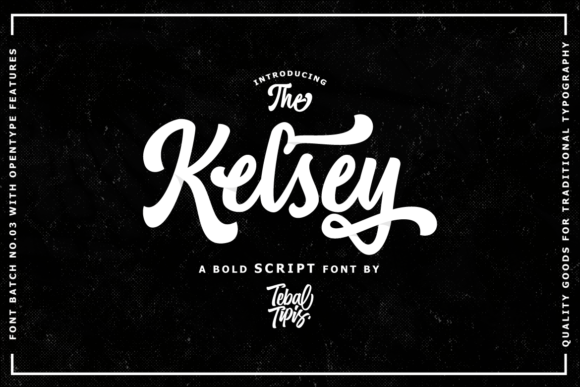
Kelsey Font - The Quintessential Handwritten Font for a Merry Christmas
Unleash the enchanting beauty of handwritten letters with Kelsey Font, a flowing and beautiful script font that will transport you to a world of elegance and charm. Crafted with meticulous attention to detail by Tebaltipis.std, Kelsey Font is a visual masterpiece that captures the essence of the holiday season.
Immerse yourself in the magic of Christmas with Kelsey Font, a font that evokes the warmth of a crackling fire, the scent of gingerbread, and the joy of spending time with loved ones. Its varying baseline, smooth lines, gorgeous glyphs, and stunning alternates create a dynamic and captivating aesthetic that will add a touch of festive cheer to your designs.
Imagine the awe and delight on your friends' and family's faces when they receive your Christmas cards, invitations, and other holiday greetings adorned with the graceful strokes of Kelsey Font. Its PUA encoding allows for effortless access to all glyphs and swashes, making it a versatile tool for creating eye-catching social media posts, stunning stationary art, and much more.
Step into a realm of creativity and let your imagination run wild with Kelsey Font. Its incredibly versatile style lends itself to a myriad of applications, from elegant wedding invitations to whimsical posters and everything in between. Whether you're a seasoned designer or just starting out, Kelsey Font is the perfect companion for your creative journey.